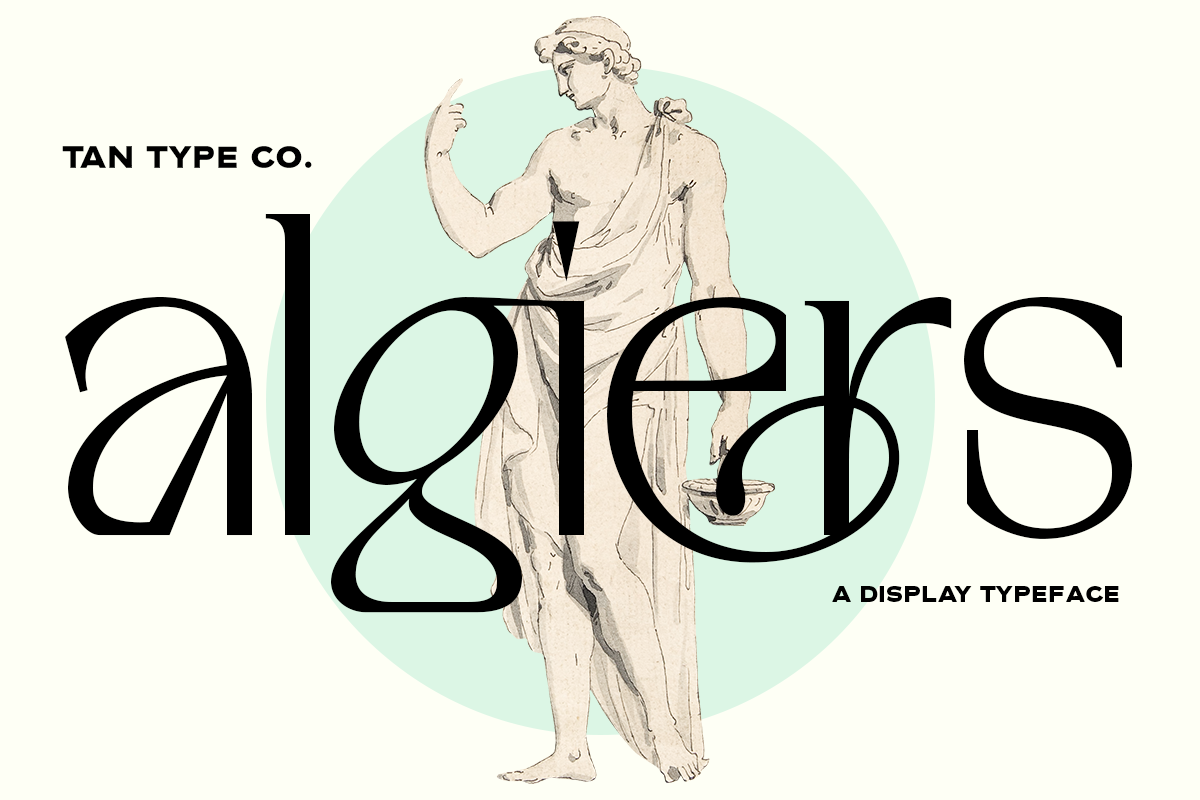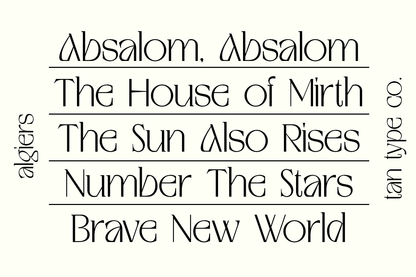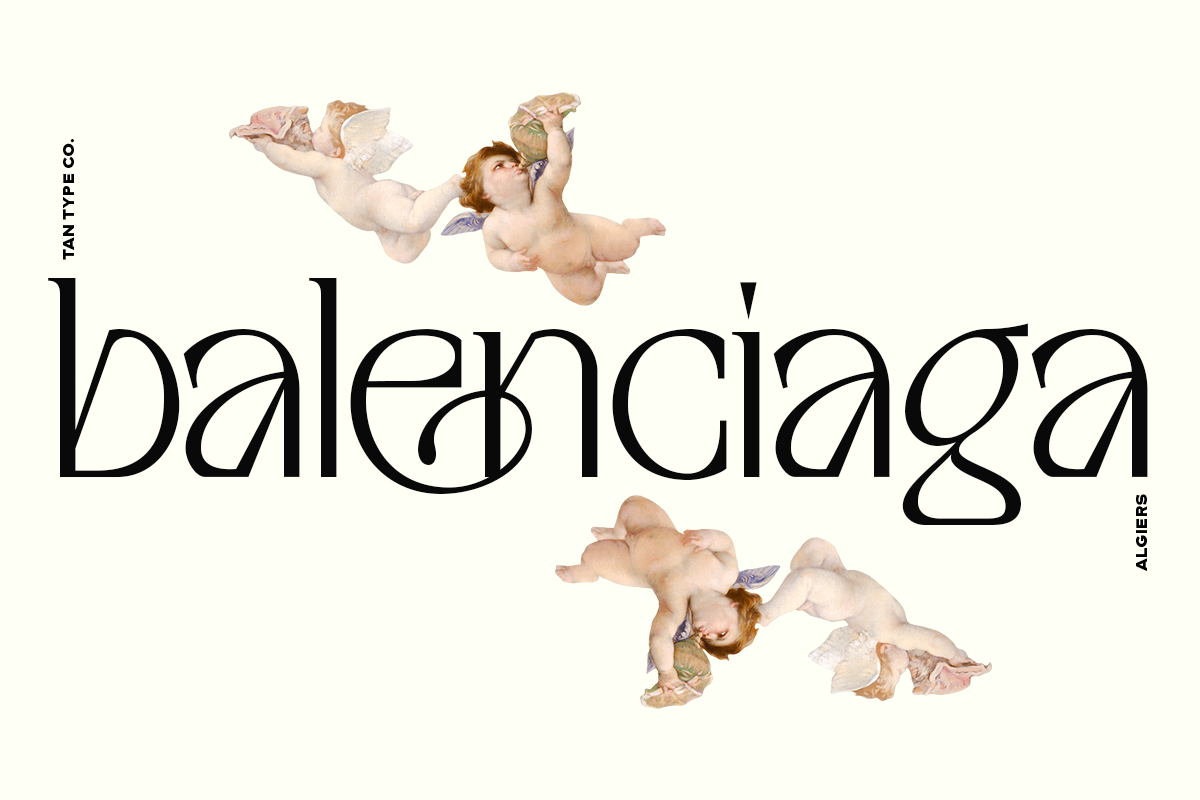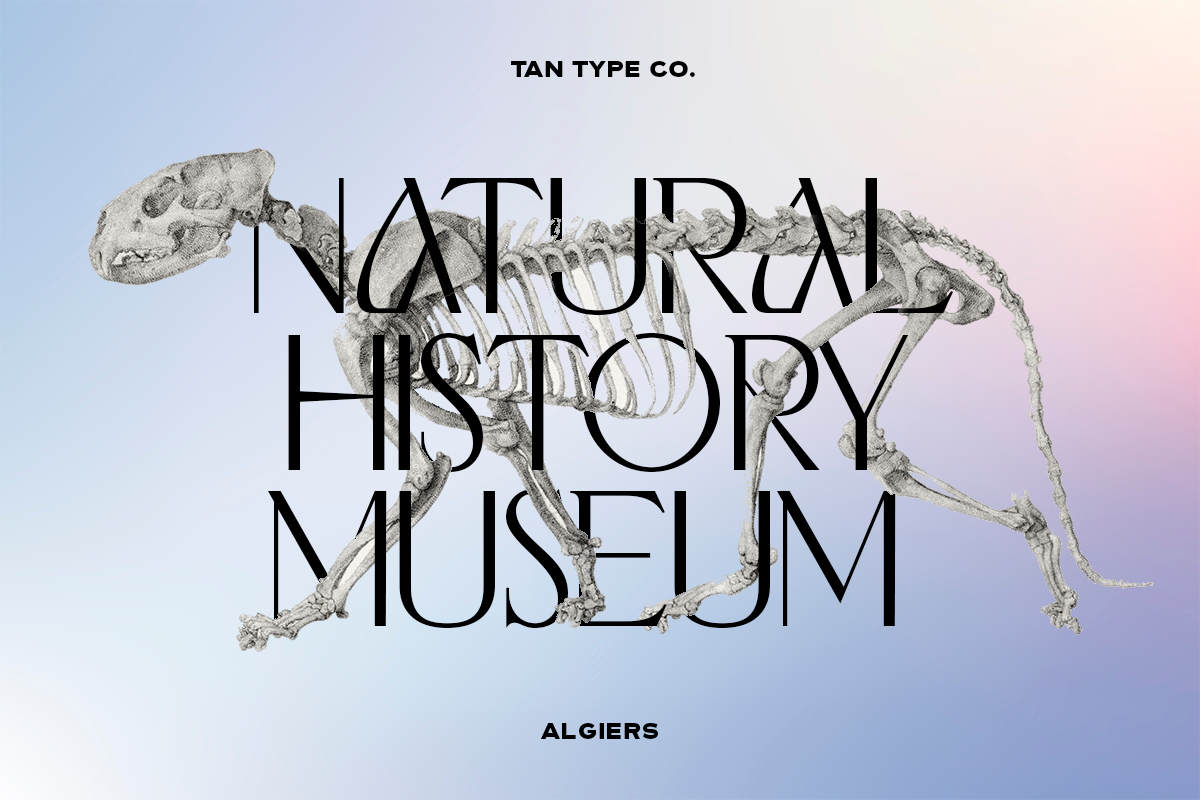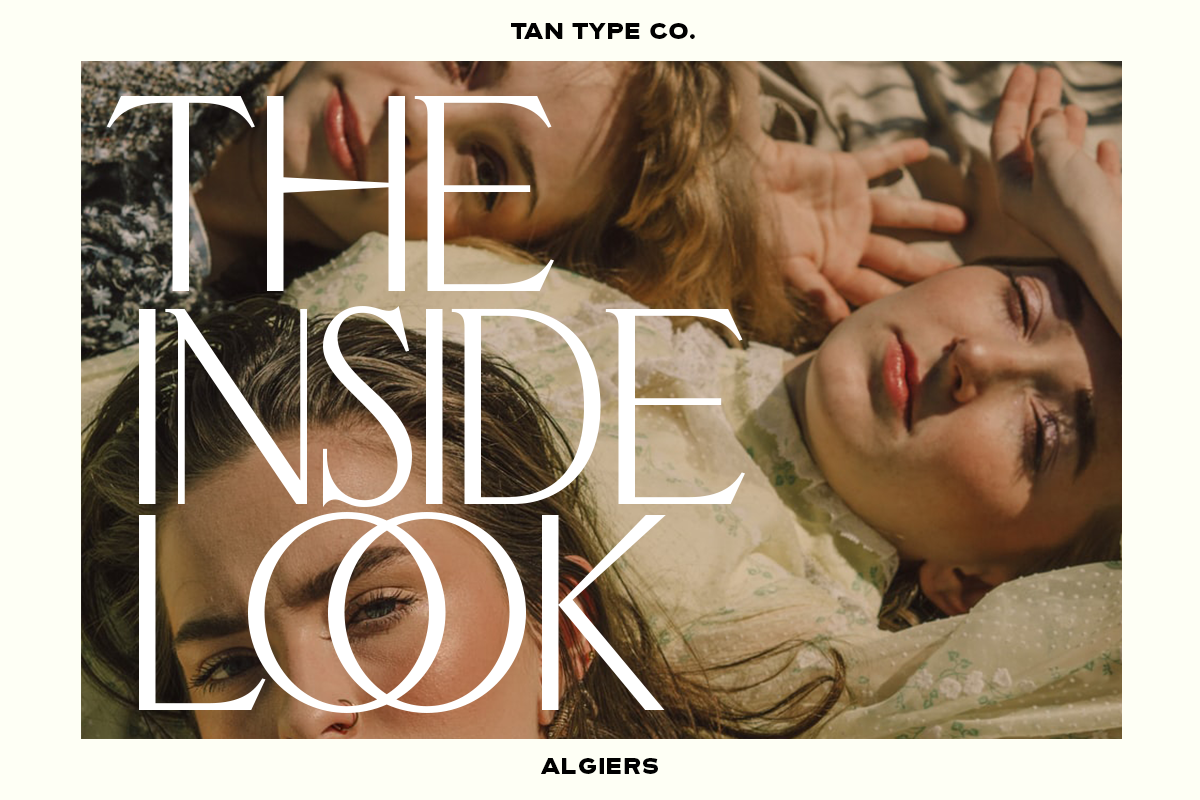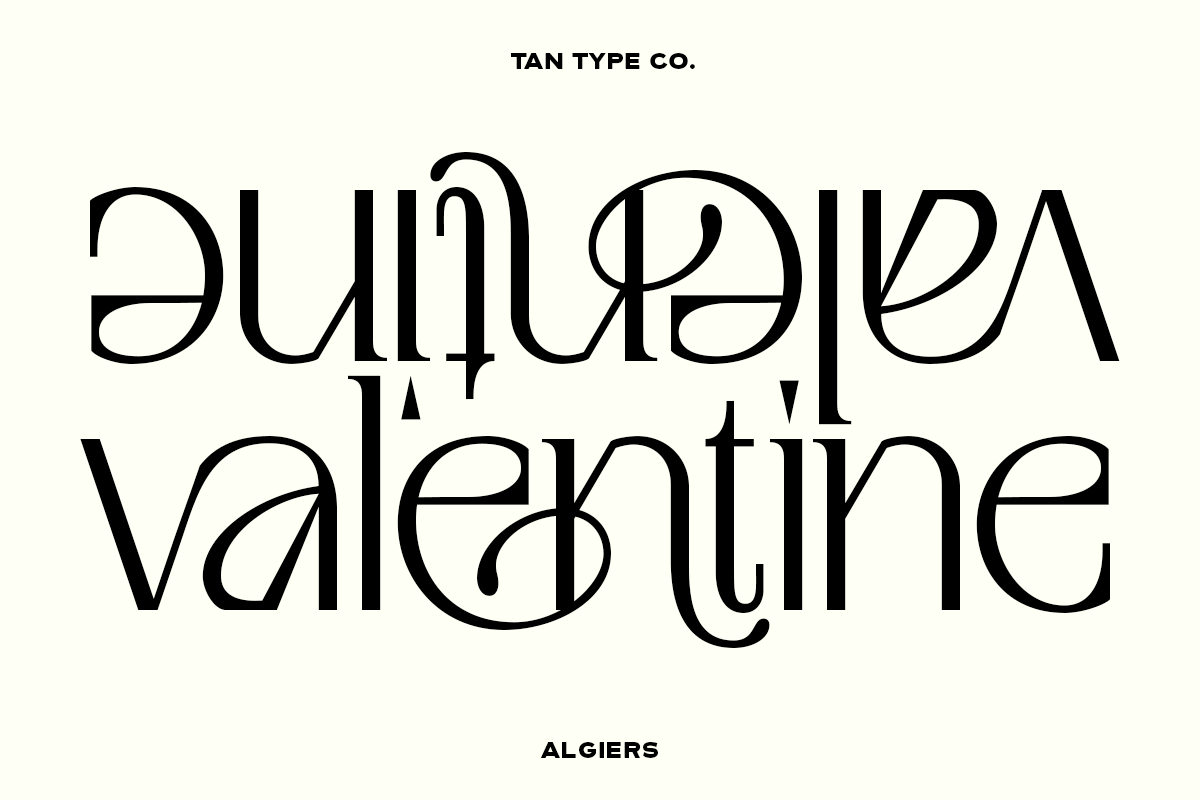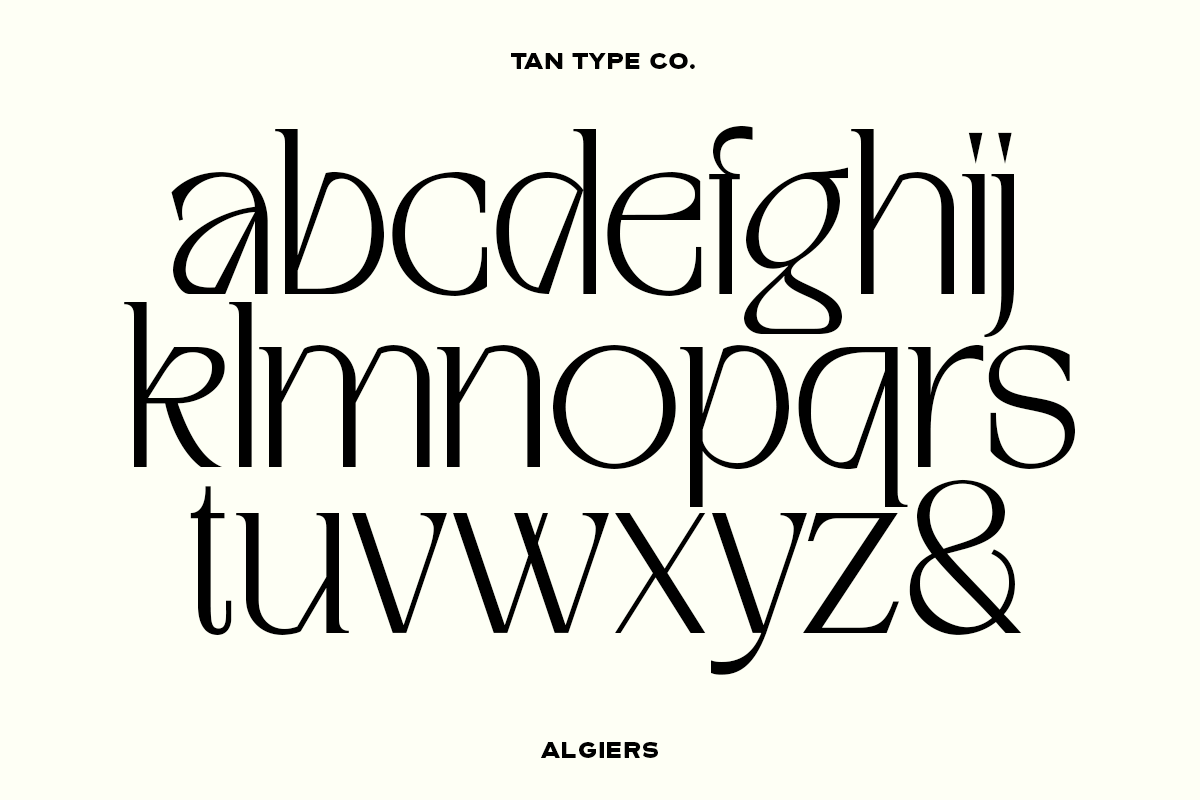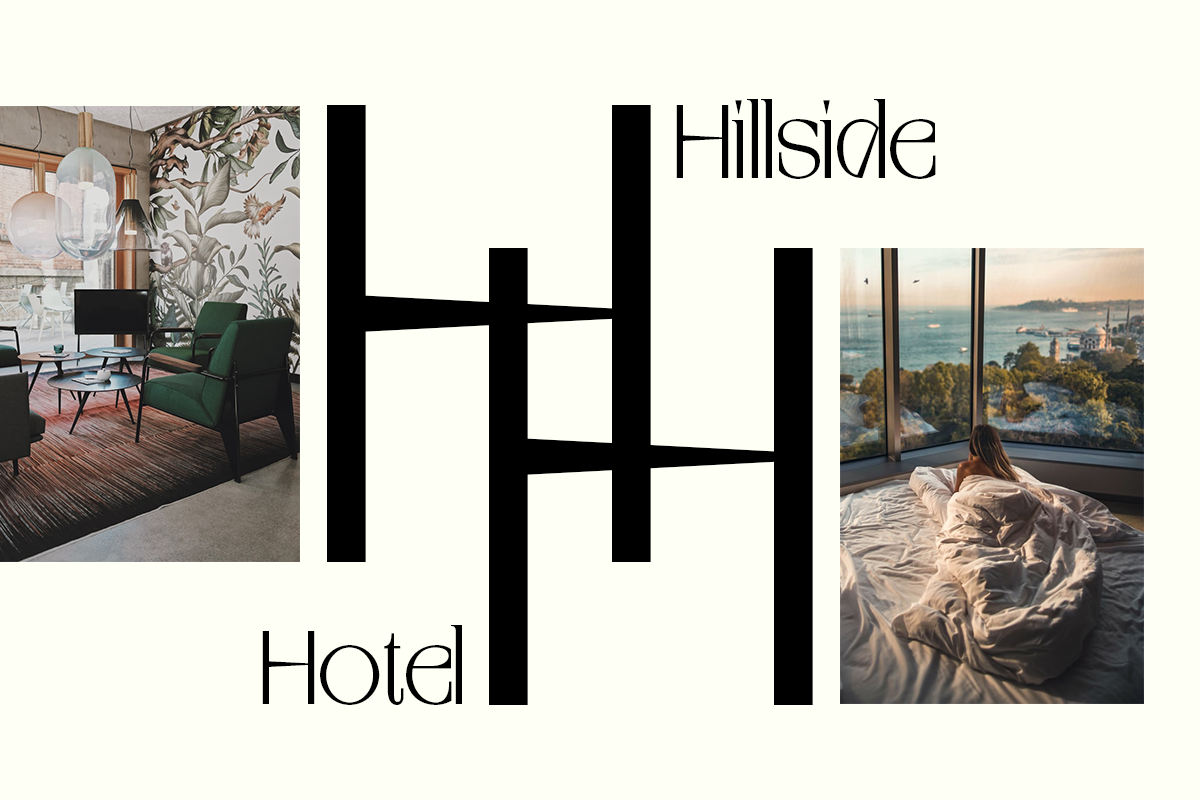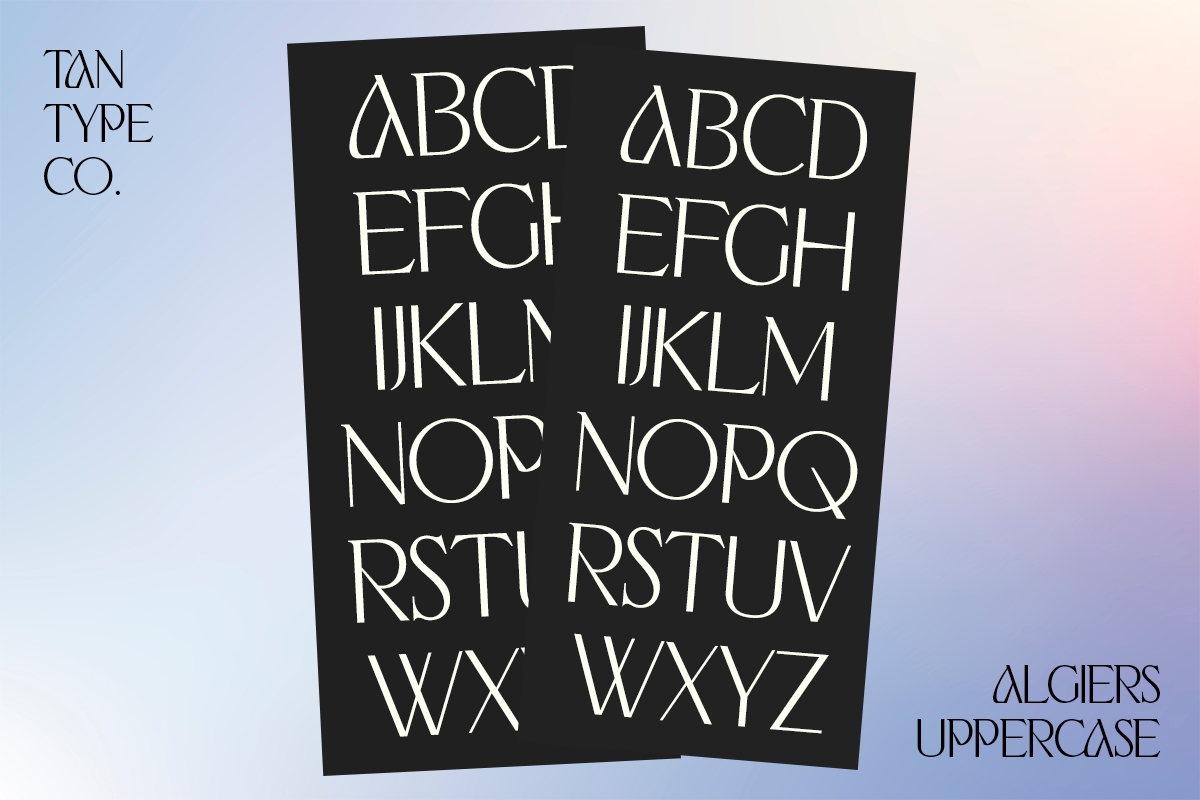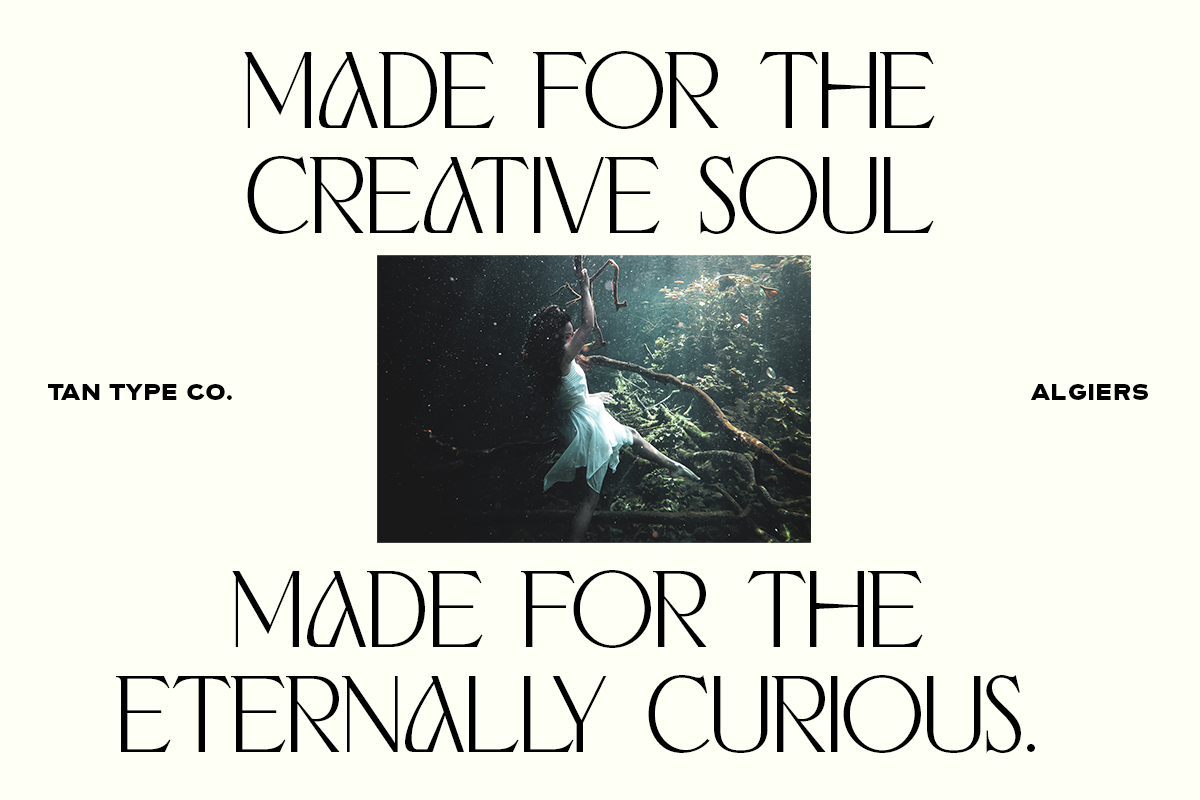
ALGIERS is a refined and sculptural display typeface with dramatic contrast and artful form. Its elegant curves and sharp terminals merge classic proportions with unexpected flourishes, creating a sophisticated and contemporary typographic statement full of character and poise.